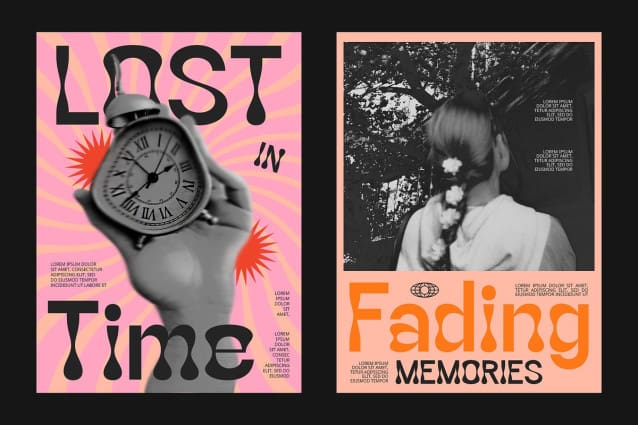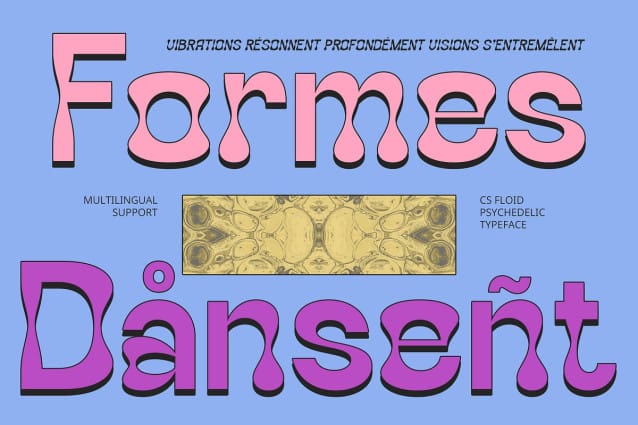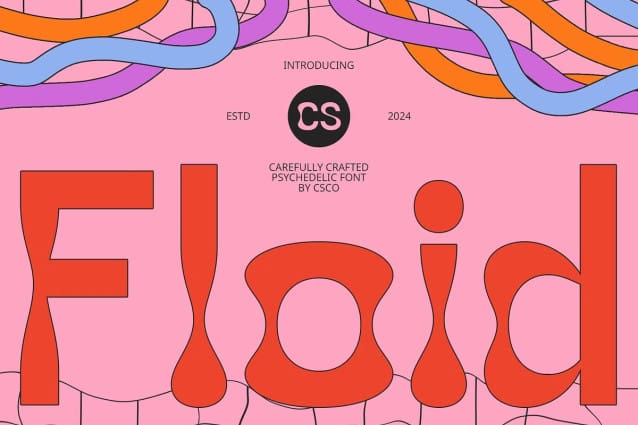
CS Floid Font
CS Floid Font is a display font that embodies a trippy, psychedelic style with its curving lines and distorted letter shapes. This font evokes a retro, funky vibe with nostalgic, vibrant aesthetics.
Unusual and Creative Letter Forms The unique characteristics of CS Floid, including its playful distortions and dynamic shapes, create a sense of movement and whimsy. This makes it perfect for designs that emphasize creativity and stand out with a distinctive, unforgettable visual energy.
Ideal for Music and Creative Projects Whether used in music posters, album covers, or other artistic endeavors, CS Floid excels in projects that require a bold and eye-catching appearance. Its trippy style brings a sense of joy and uniqueness, making it an excellent choice for designs that aim to capture attention and evoke a retro, funky feel.
Versatile for Vibrant and Funky Designs CS Floid’s blend of psychedelic elements structure ensures versatility across a range of creative projects. From promotional materials to experimental graphics, this font adds a lively, memorable touch that brings your design to life with a trippy, joyful energy.